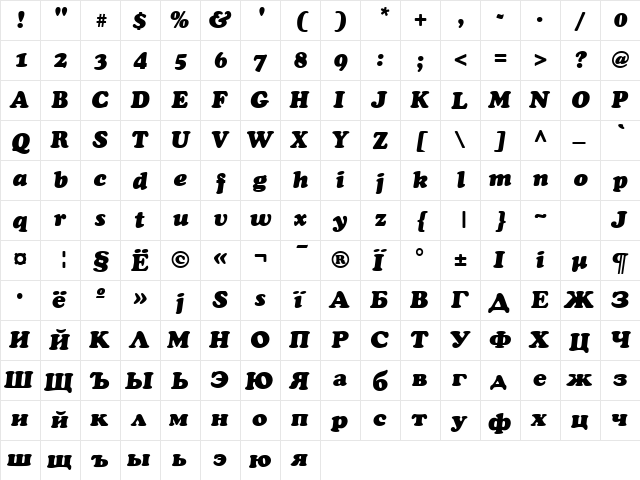
AGCrownStyle Italic
Design Context for AGCrownStyle Typeface
AGCrownStyle offers clean, dependable letterforms without strong stylistic allegiance, making it a practical choice for designers who need flexibility. Its italic angle brings a sense of urgency and motion to the letterforms.
Pro Tip: Use AGCrownStyle for emphasis, pull quotes, and subheadings where its slanted energy can add rhythm to the layout.